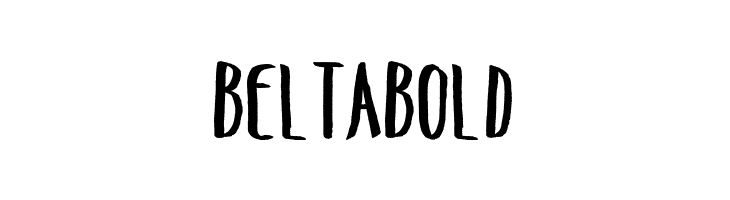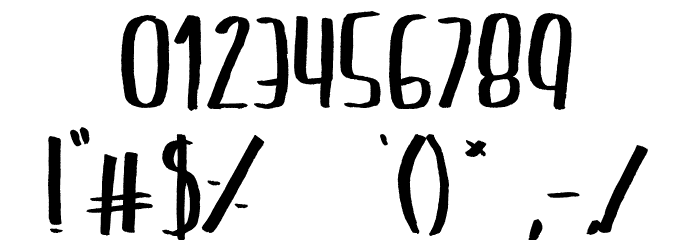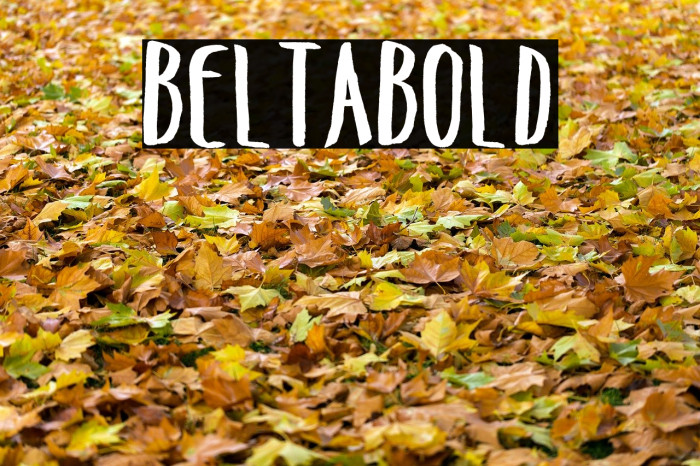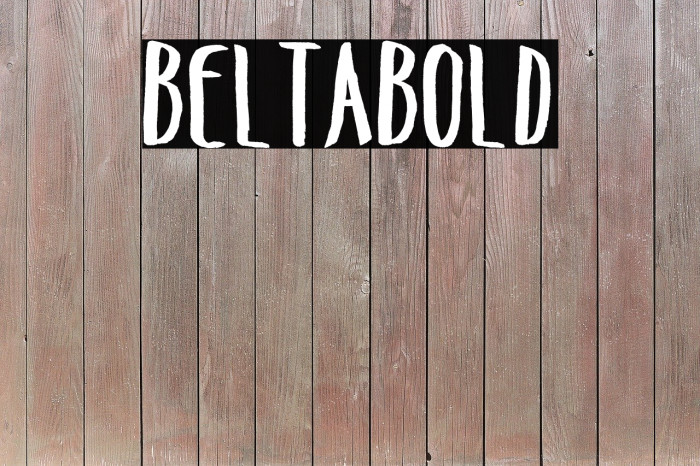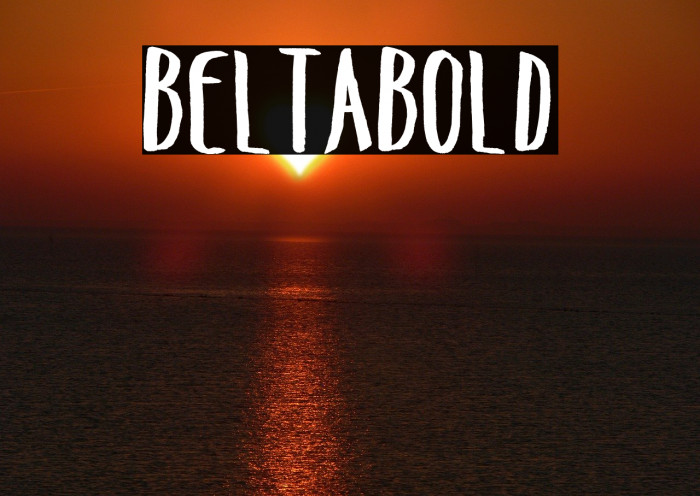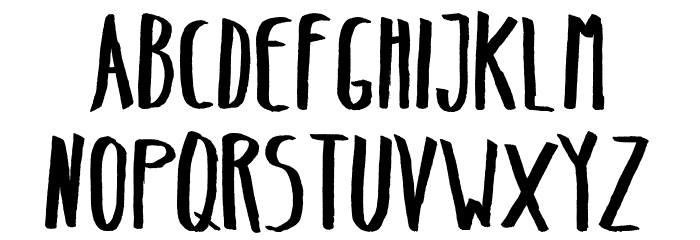
BeltaBold Font
This font features a bold and expressive style with a hand-drawn appearance. The characters are tall and slightly narrow, giving them a unique and artistic flair. The strokes are uneven, adding to the handcrafted feel, and the overall look is dynamic and energetic. The uppercase and lowercase letters maintain a consistent style, with a playful yet sophisticated touch. The numbers and special characters are designed to match the lively aesthetic, making this font suitable for creative and informal projects.
A bold, hand-drawn font with an expressive and artistic style.
• Proposed Projects: Ideal for posters, branding, packaging, and creative design projects that require a bold and artistic touch.